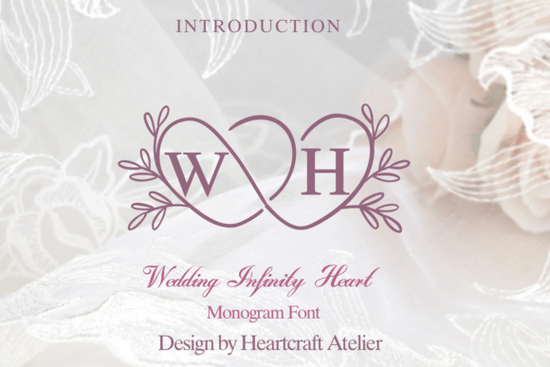
Finding the right typography for romantic or celebratory projects can be challenging, especially when you need a balance between readability and intricate detailing. The Wedding Infinity Heart Font provides a decorative, hand-lettered aesthetic that works well for personalized gifts and event stationery. Whether you are creating custom greeting cards, designing wedding invitations, or preparing files for a print-on-demand store, this typeface offers distinct looping characters and integrated heart motifs.
What types of crafting projects suit this decorative style?
Decorative fonts require careful placement so the intricate details remain legible. For small business owners and creative hobbyists, this style is highly effective on physical products where the text serves as a primary focal point.
Some practical applications include:
- Custom ceramic mugs featuring romantic quotes or anniversary dates.
- Wedding signage, including welcome boards, table numbers, and seating charts.
- Personalized diaries, journals, and notebook covers.
- Apparel graphics, particularly for bridal party shirts or Valentine's Day merchandise.
When pairing this typeface with other design elements, keeping the background clean helps the delicate lines stand out. If you are looking to expand your typography library, browsing these decorative font options can provide complementary styles for your secondary body text.
How does this font perform in cutting machine software?
Crafters using Cricut Design Space or Silhouette Studio often look for connected scripts that cut cleanly without tearing the material. Highly decorative fonts can sometimes produce fragile edges, but preparing your canvas correctly minimizes these issues.
For vinyl projects on shirts or banners, using a thicker material like glitter vinyl or heavy cardstock provides better structural integrity. Always remember to weld your letters together in the design software before sending the job to the cutting machine. This ensures the software reads the entire word as a single continuous shape rather than individual overlapping letters, which prevents the blade from making unnecessary interior cuts.
Can you use this typography for print-on-demand products?
Print-on-demand sellers can easily adapt this typography for various merchandise. The key to success in the POD industry is creating designs that appeal to specific niches, such as bridal showers, romantic holidays, or anniversaries. Because this style incorporates built-in decorative elements, you can create standalone text designs without needing to purchase additional vector graphics.
When preparing files for direct-to-garment printing, export your text as a high-resolution PNG with a transparent background. This ensures the intricate loops and heart shapes print sharply on t-shirts, tote bags, and canvas wall art. Just remember to flatten the image completely so the printing software does not attempt to interpret the lettering as separate layers.
Is it suitable for social media and digital stationery?
Yes, the looping, romantic nature of this typeface translates well to digital formats. Content creators and social media managers can use it to create clear, eye-catching headers for Pinterest pins, Instagram story templates, or digital planners.
Because digital screens display fine details easily, you do not have to worry about the physical limitations of cutting machines or low-resolution printing. You can layer the text over subtle watercolor backgrounds or pair it with a minimalist sans-serif font to create engaging digital stationery. The integrated heart shapes add a natural embellishment without requiring extra graphic elements.
What should you check before selling products with this font?
How can you ensure the best results for your next project?
Before finalizing your next design, run through this quick setup checklist to guarantee a smooth production process:
- Test the sizing: Print or cut a small sample to ensure the interior heart details remain visible at your intended dimensions.
- Check the contrast: Use high-contrast color combinations, such as dark navy on cream or gold foil on white, to make the script legible.
- Pair carefully: Combine the decorative script with a simple, readable font for secondary information like event locations or product descriptions.